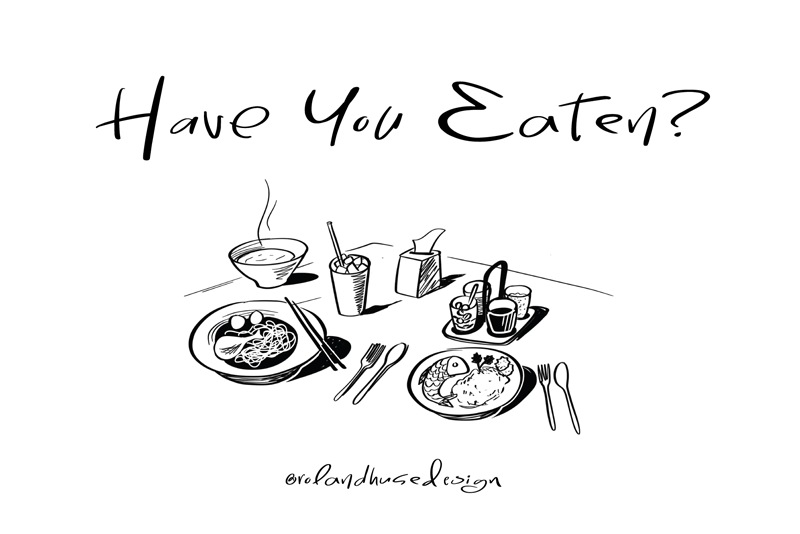
Preview and download Have You Eaten? Font. Created by Roland Huse Design in Script Handwritten styles with Free for personal use license.
�Have You Eaten� is a casual handwritten script font with basic Latin character set with stylistic alternates that are set to cycle randomly. Please enable �contextual alternates� OT feature in order to achieve more natural look. Ligatures: oo ll tt ss. For commercial use pleas purchase a commercial license via PayPal from $15. for inquiries, customization, extra characters, accents please write me at fonts@rolandhuse.com for more of my fonts visit https://www.creativefabrica.com/es/designer/roland-huse-design/ref/2092 Follow me on Instagram @rolandhusedesign |